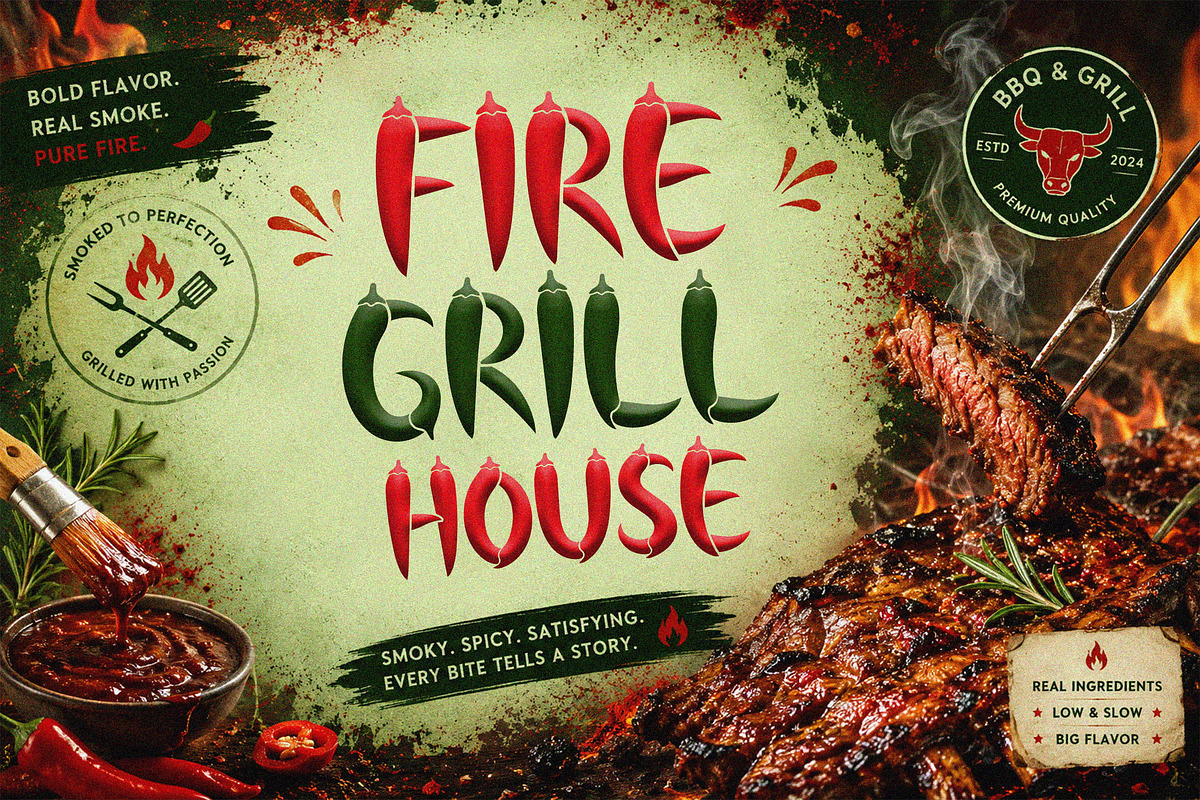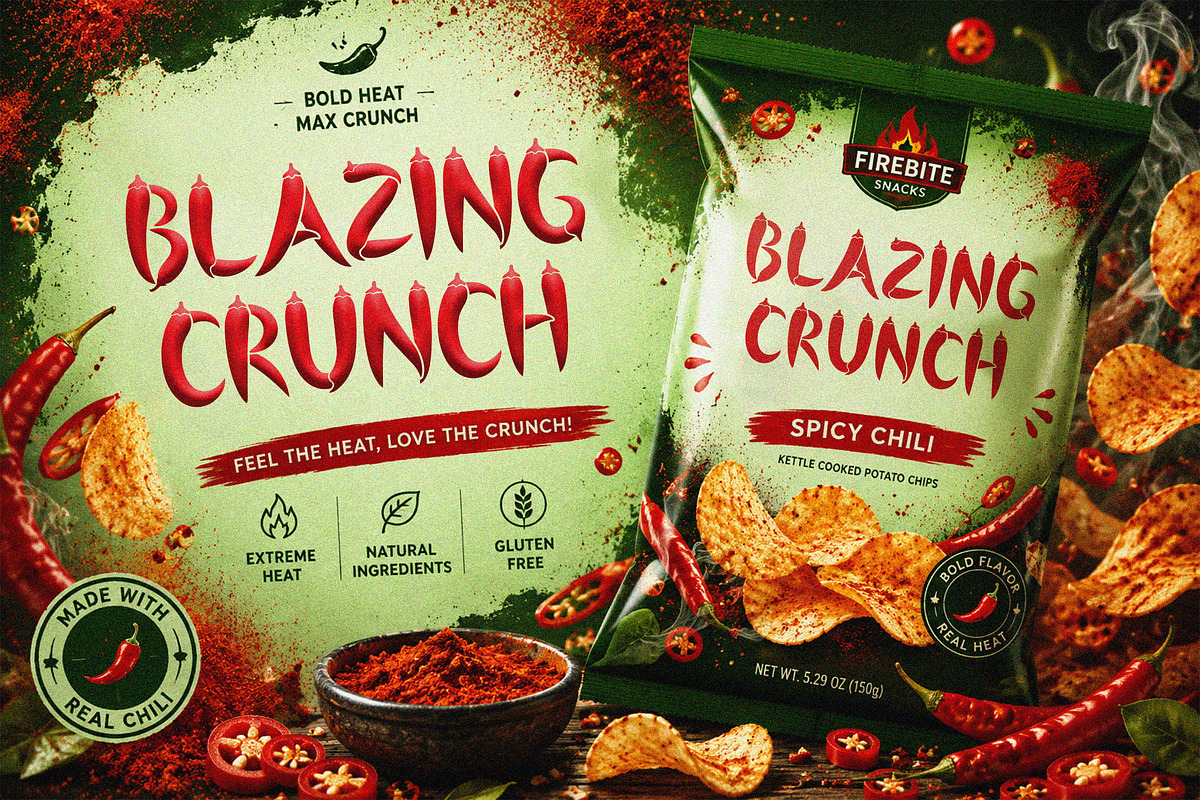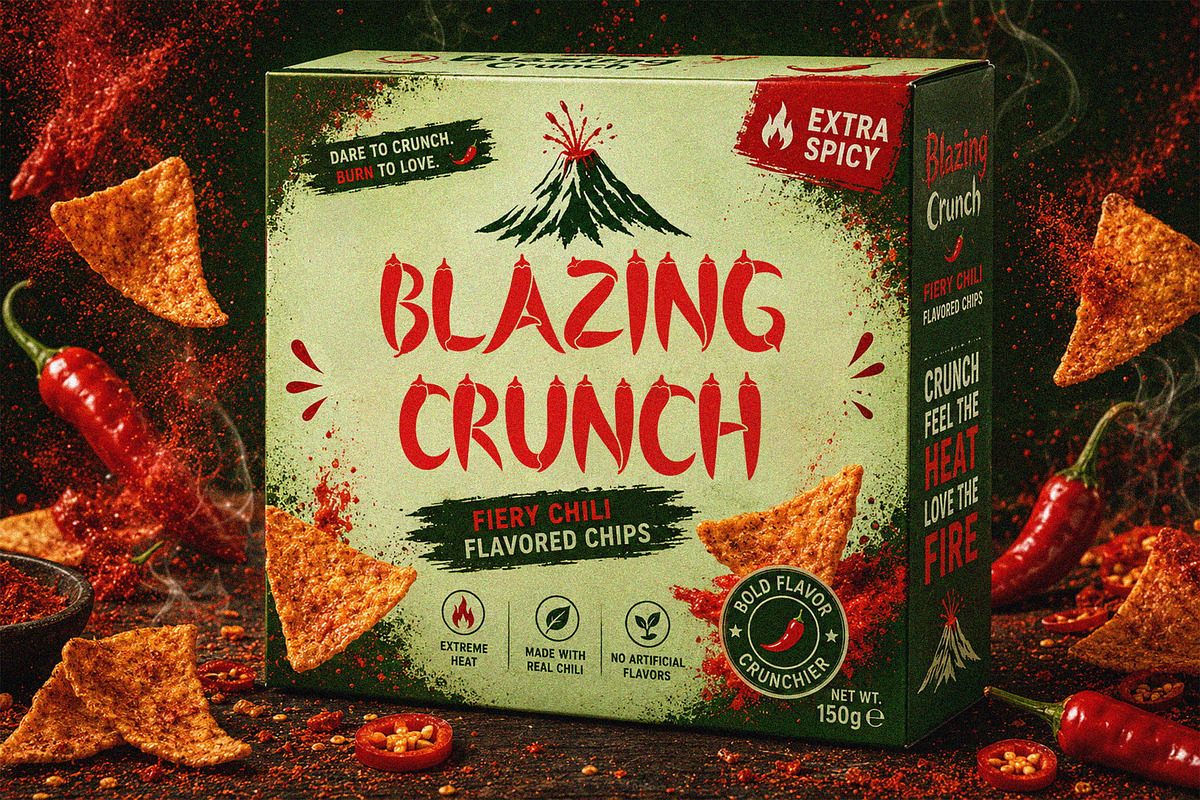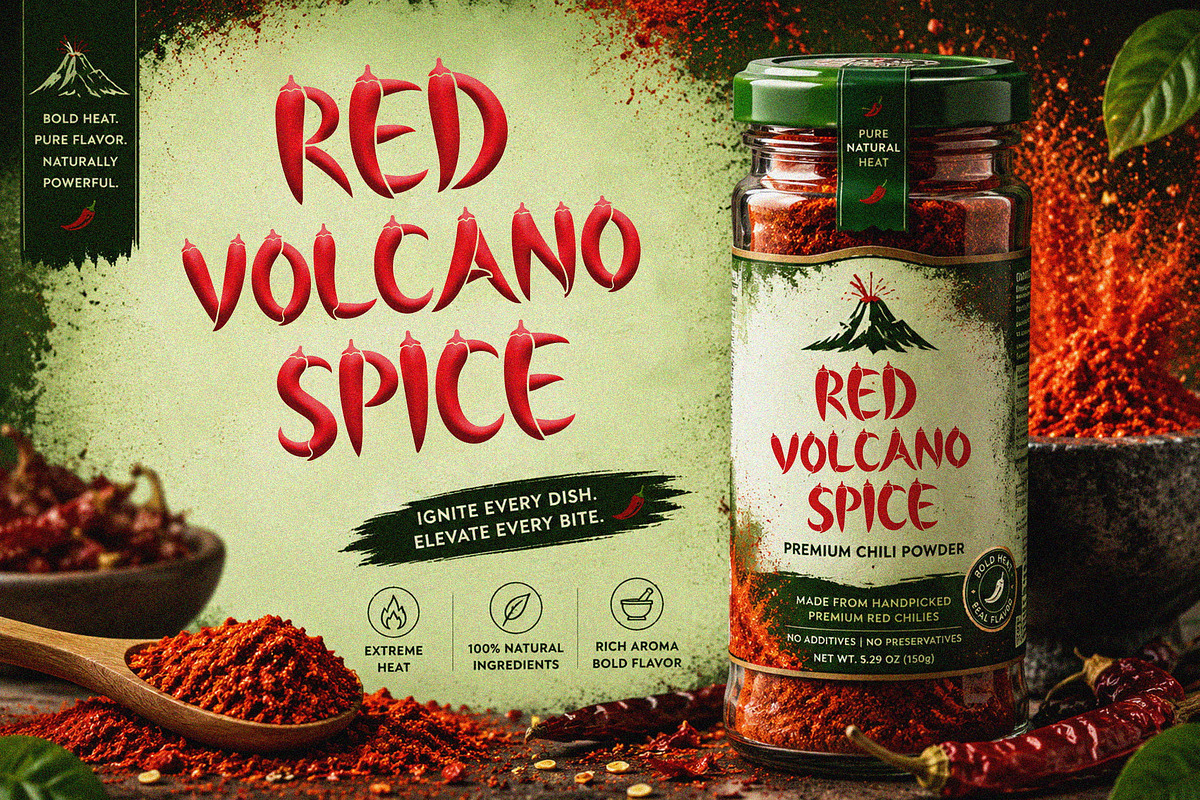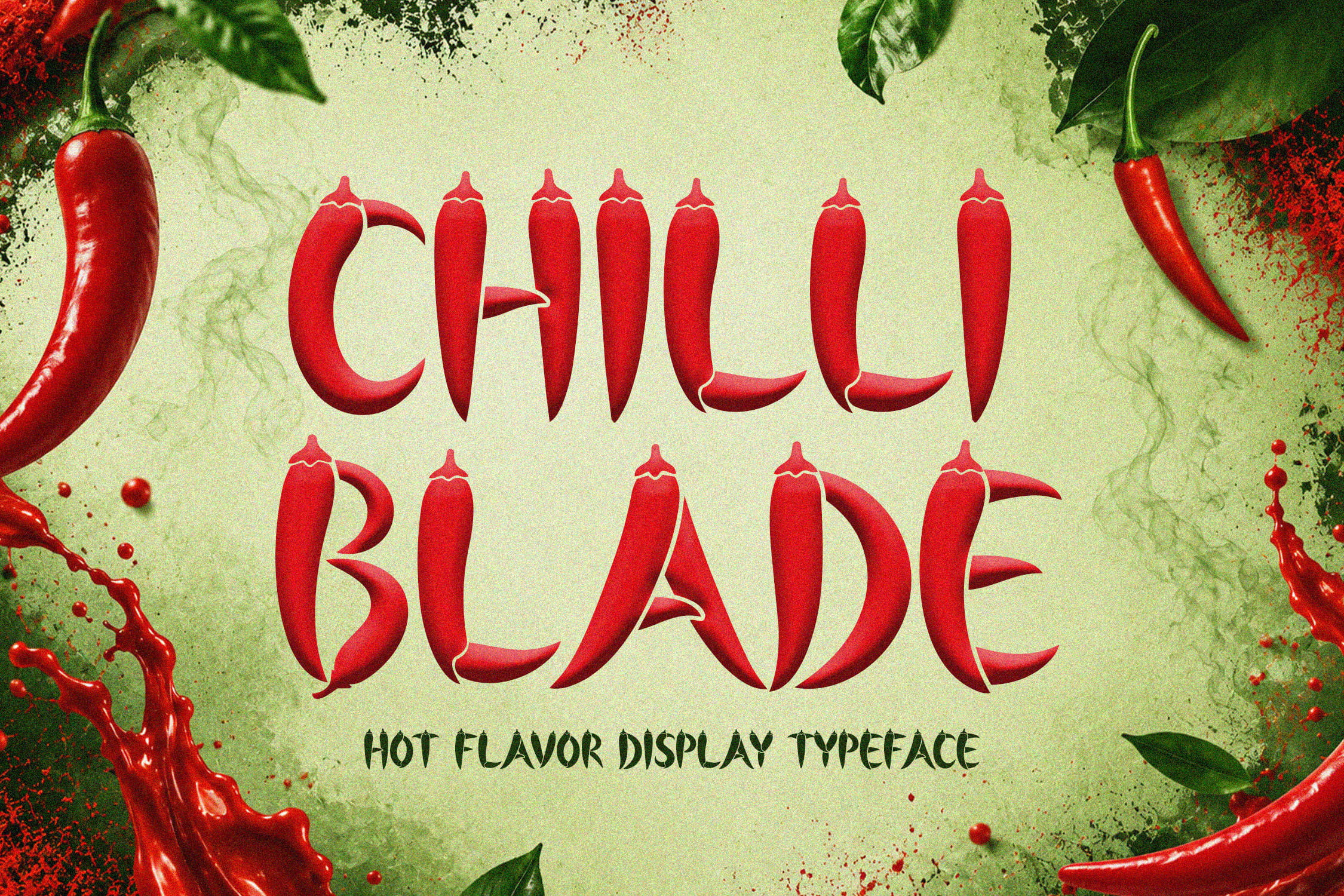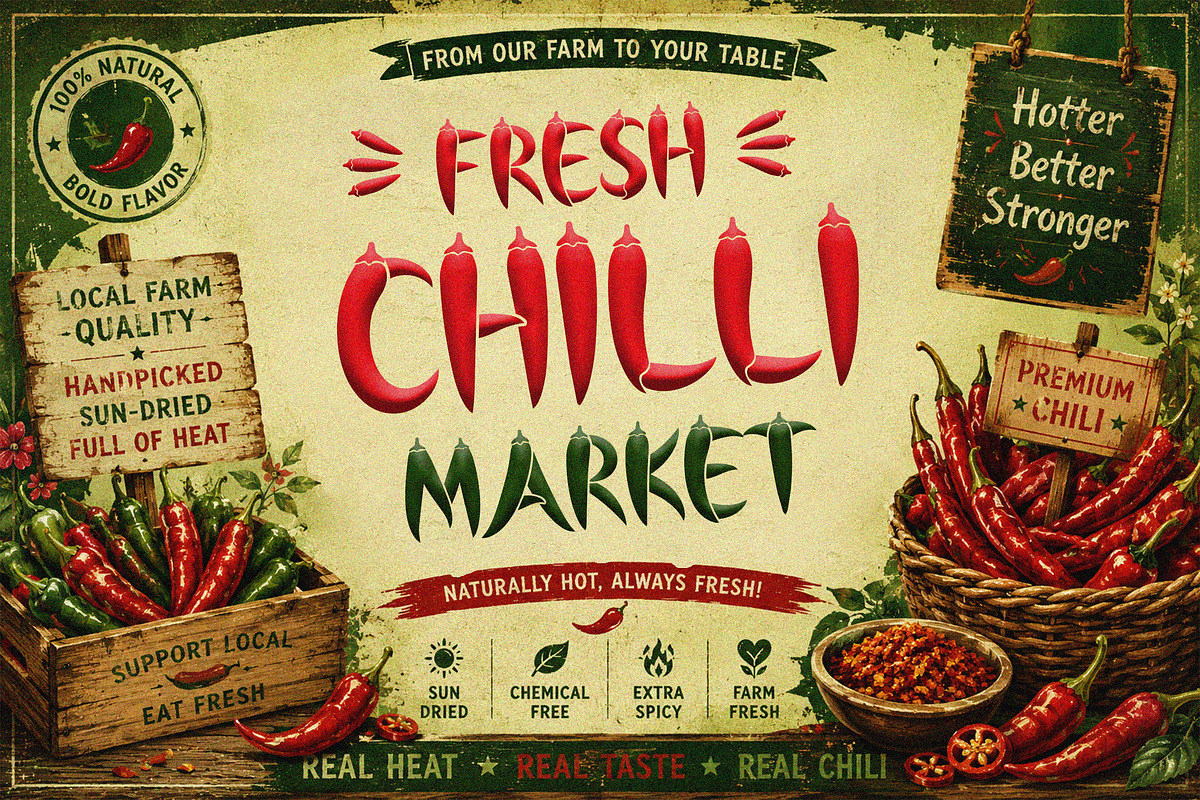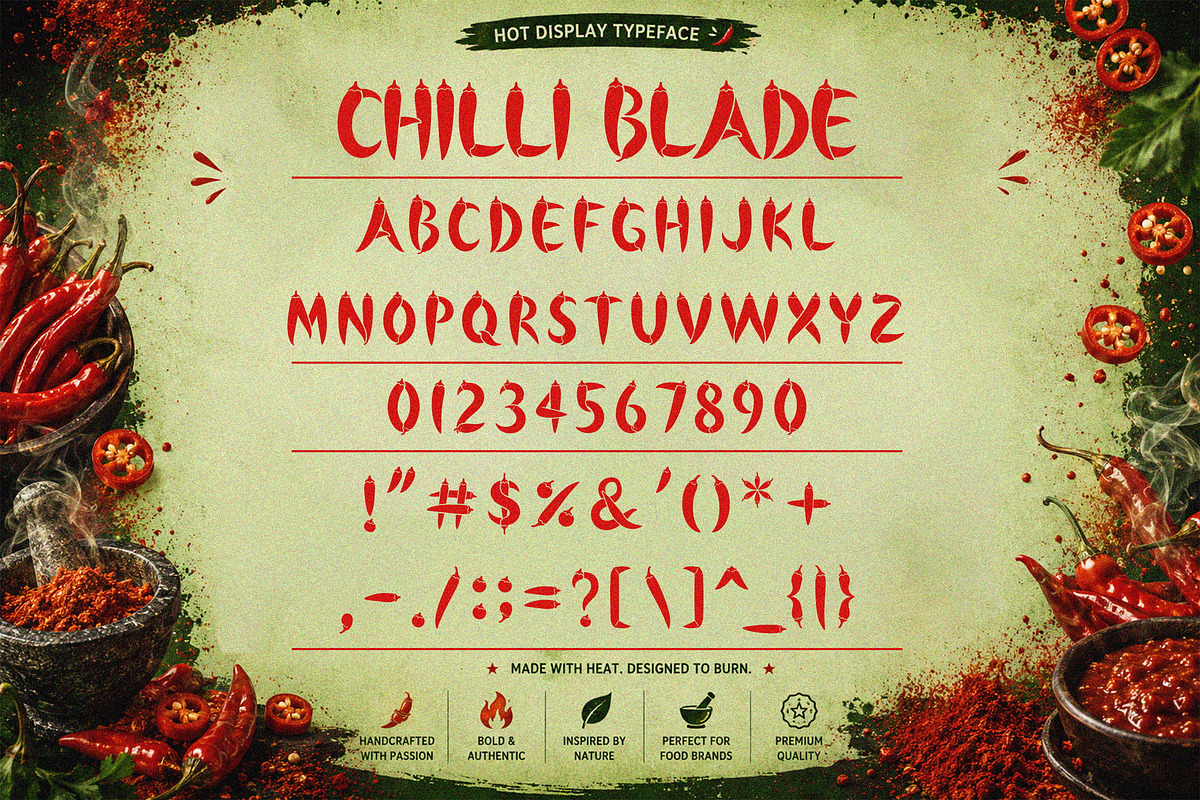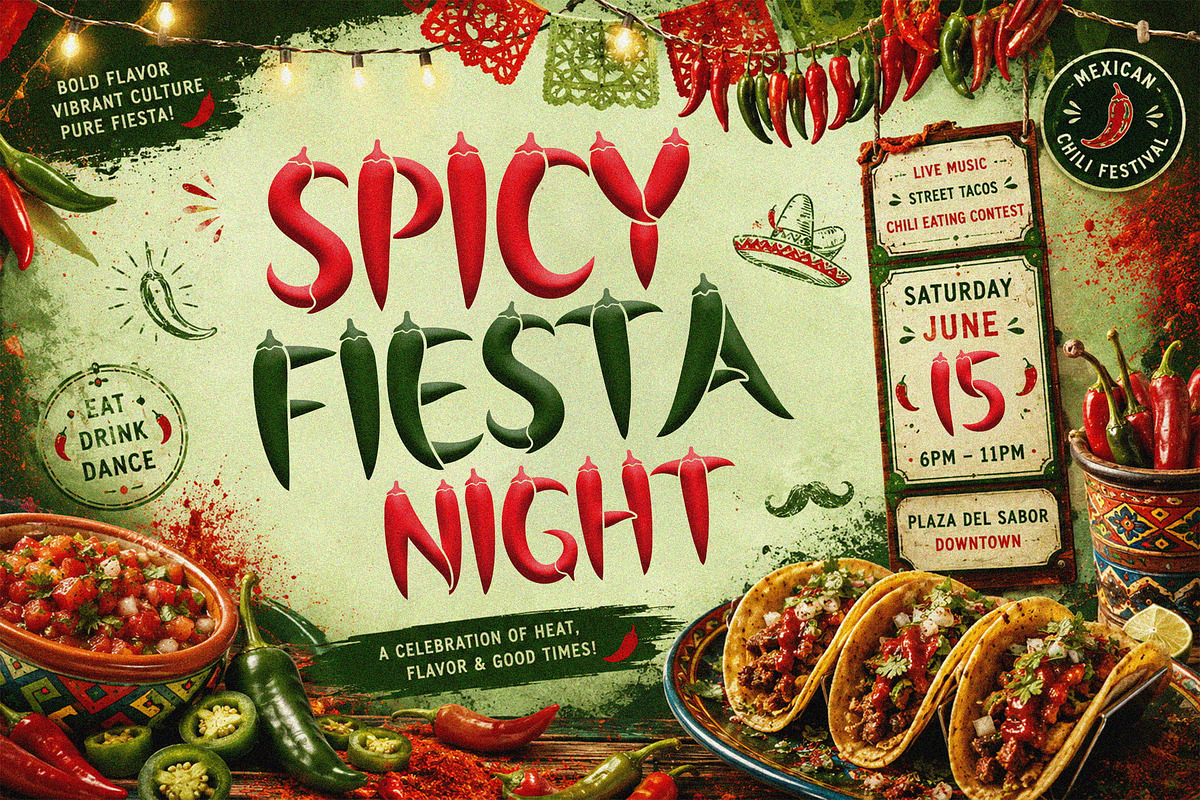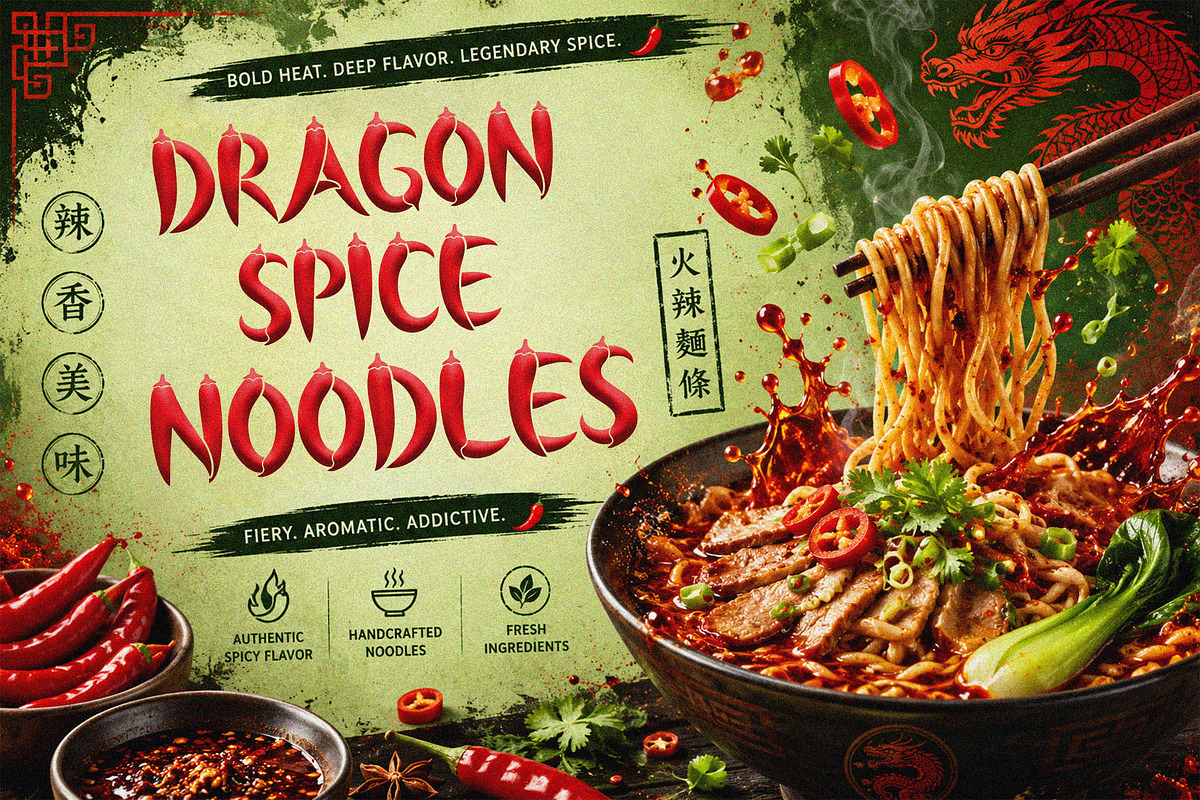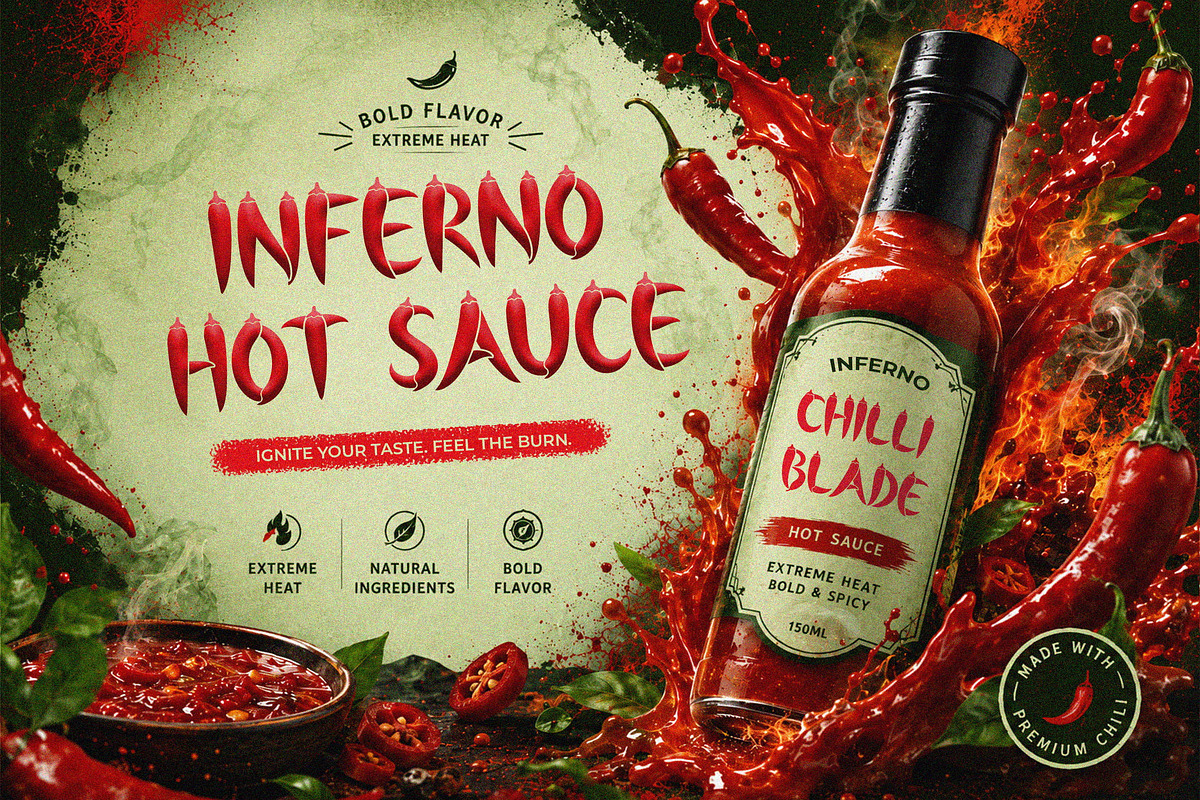
CHILLI BLADE - Display Font
Chilli Blade — Hot Spicy Display Font
Chilli Blade is a bold spicy display font inspired by the sharp curves and fiery shapes of fresh chili peppers. Featuring handcrafted organic letterforms with a hot, energetic personality, this font brings a strong, flavorful, and eye-catching feel to your designs.
Designed to capture the spirit of spicy food culture and bold culinary branding, Chilli Blade is perfect for projects that need expressive typography with a fiery visual identity.
Ideal for food branding, hot sauce packaging, snack products, restaurant logos, festival posters, merchandise, and promotional designs.
Uppercase A–Z
Numbers (0–9)
Chili pepper-inspired letterforms
Bold and handcrafted display style
Organic curves with sharp spicy details
Unique food-themed typography
Perfect for spicy food and culinary branding
Easy to use for print and digital projects
Hot sauce packaging
Spicy snack branding
Restaurant & street food logos
BBQ and grill product design
Festival posters & food events
Merchandise & apparel design
Social media food promotions